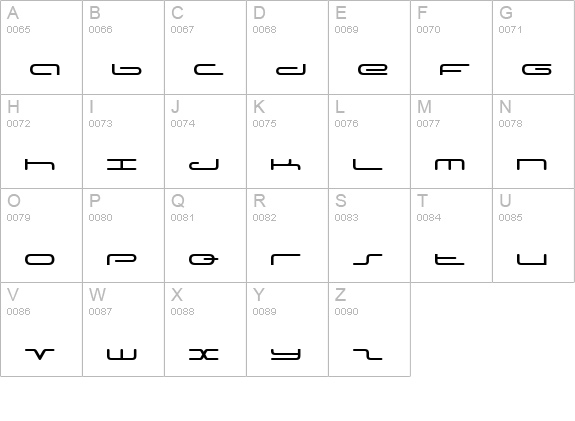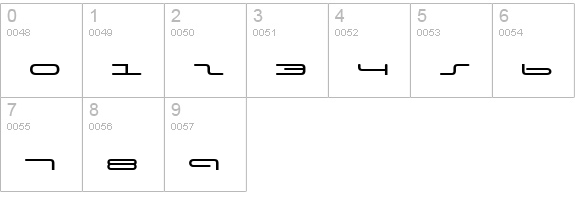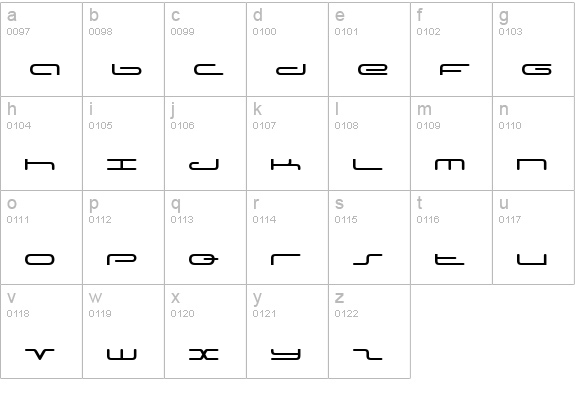
Captain Podd Font Details
Introducing Captain Podd font, a bold and adventurous typeface inspired by the spirit of exploration and discovery. With its playful yet strong letterforms, this font is perfect for adding a touch of whimsy to your designs. Whether you're creating a poster, logo, or branding materials, Captain Podd will surely make a statement. What's even better? Captain Podd font is available for free download exclusively at FontsMarket.com. Embrace the free-spirited nature of this font and let your creativity soar with Captain Podd!